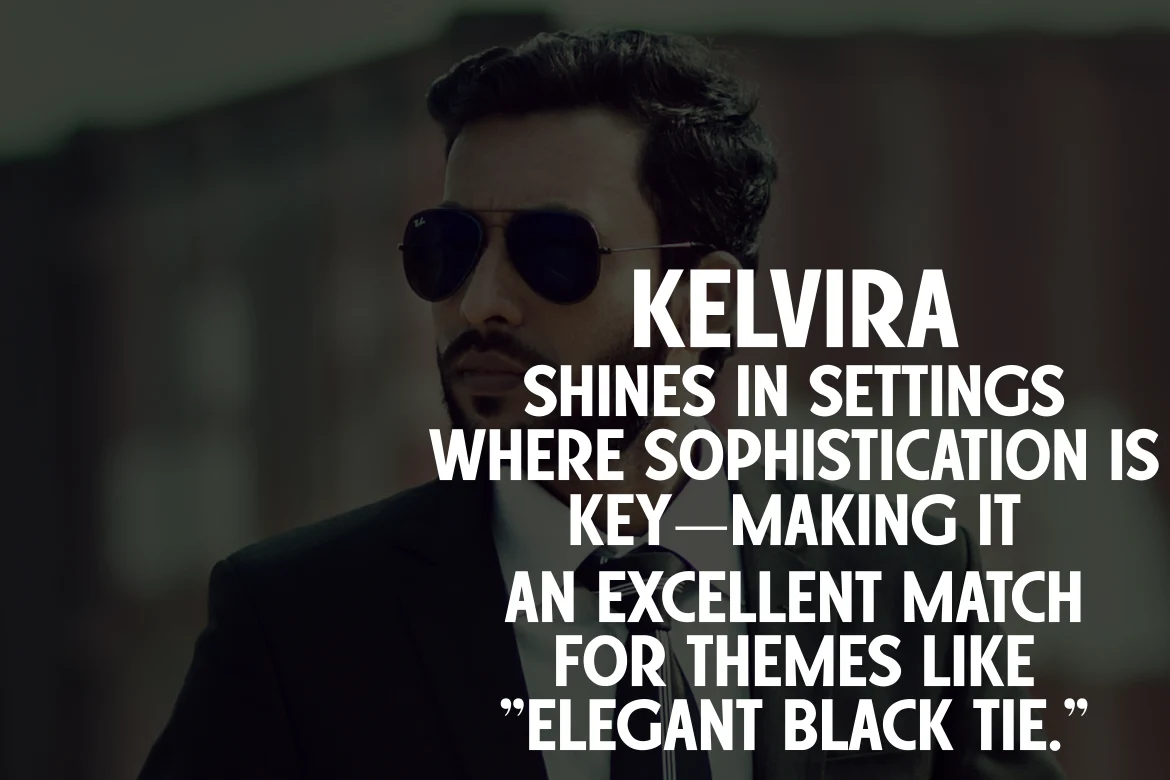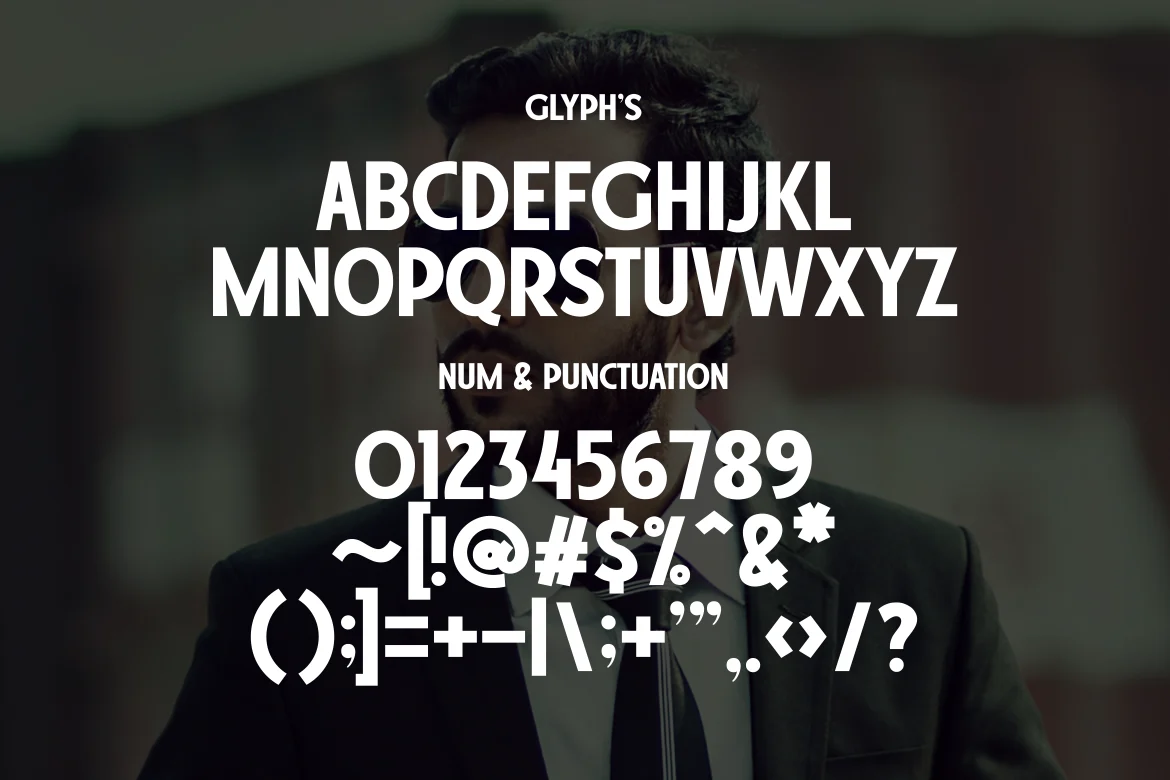
Kelvira – Strong Elegant Font
Kelvira is a sophisticated and elegant font, perfect for formal and luxurious designs. Its timeless curves make it ideal for wedding invitations, branding, and black-tie themes.